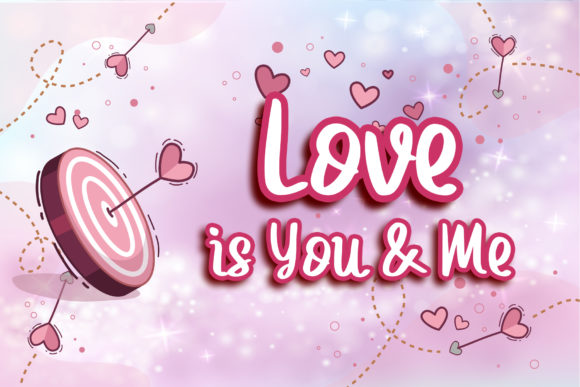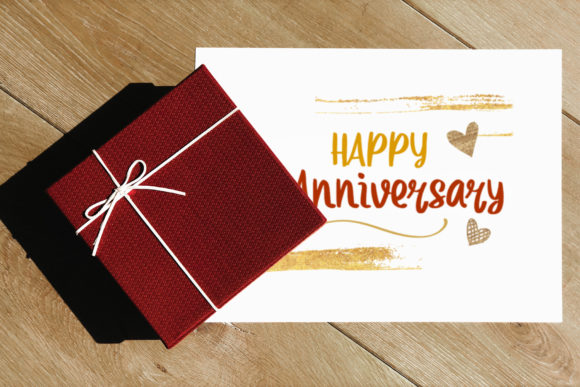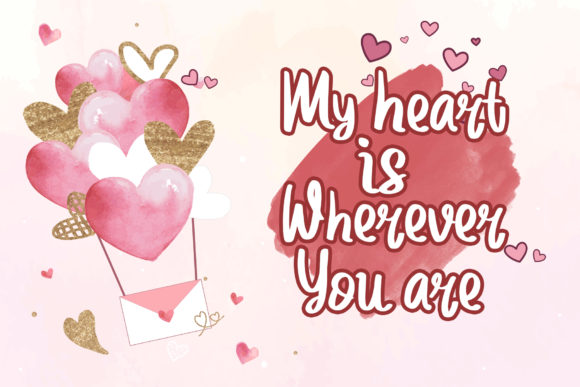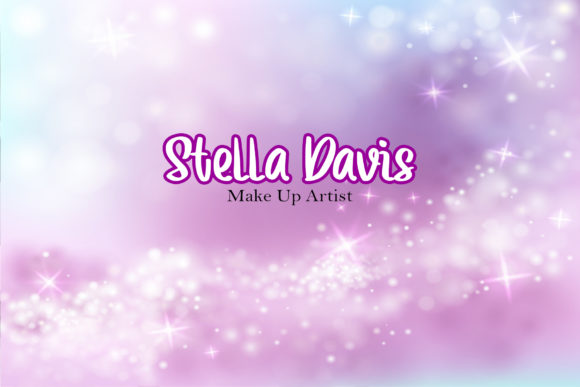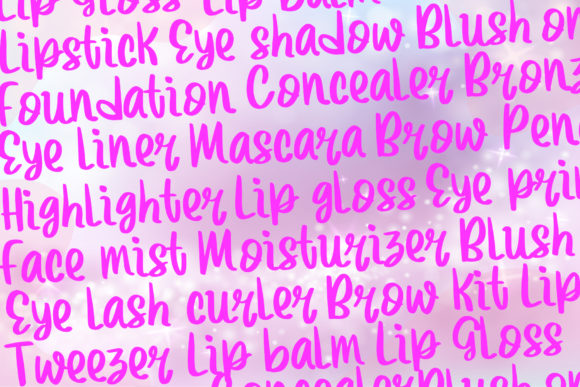
Introduction to Miracle of Love Font Font
Fonts play a crucial role in design, and the Miracle of Love Font font is a typeface that brings both character and versatility to any project. Whether you’re working on a branding project, a website, or a print design, the Miracle of Love Font font offers a unique style that can elevate your work.
Miracle of Love is a playful and friendly display font.
Whimsical and a bit quirky, this font will brighten up each of your designs Add it confidently to your projects, and you will love the results.
Key Features of Miracle of Love Font Font
Why Choose Miracle of Love Font Font?
The Miracle of Love Font font is more than just a typeface – it’s a design tool that helps you communicate your message with style and clarity. Its unique character set and versatile design make it suitable for a wide range of applications, from elegant invitations to bold headlines.
With its carefully crafted letterforms and balanced proportions, the Miracle of Love Font font ensures readability and visual appeal across all mediums.
What makes Miracle of Love Font font special?
The Miracle of Love Font font stands out with its unique design, exceptional readability, and versatility across various design applications.